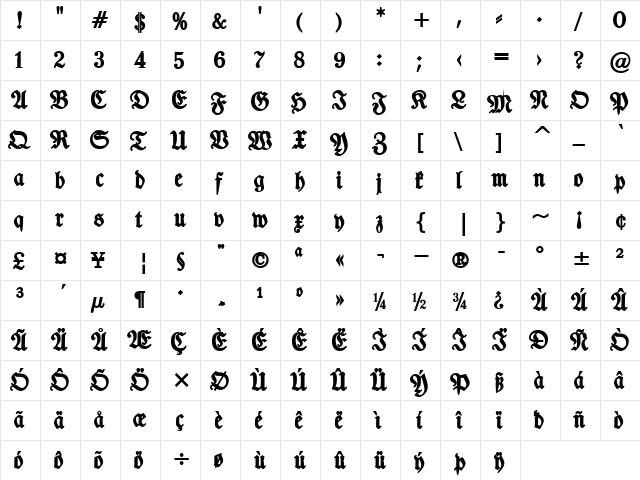
TypographerFrakturUNZ1 Medium
Design Context for TypographerFrakturUNZ1 Typeface
TypographerFrakturUNZ1 draws on the rich tradition of blackletter calligraphy, with dense, angular strokes that evoke medieval manuscripts and old-world craftsmanship.
Well-suited to band logos, craft beer branding, tattoo lettering, and heritage-themed identities.
Font Pairing: Pair with a clean neutral sans-serif for body copy to let TypographerFrakturUNZ1's character lead without overwhelming the composition.
Pro Tip: Use TypographerFrakturUNZ1 sparingly at large sizes. Even a single word set in blackletter can define the visual register of an entire design.